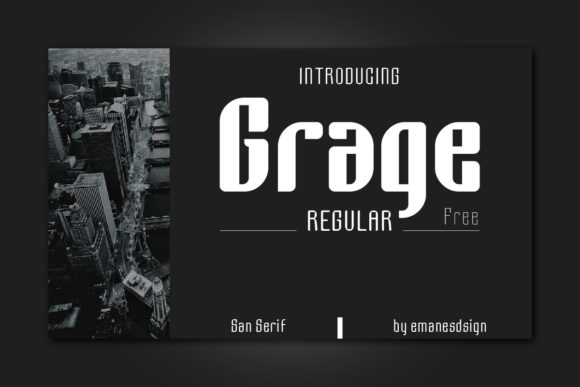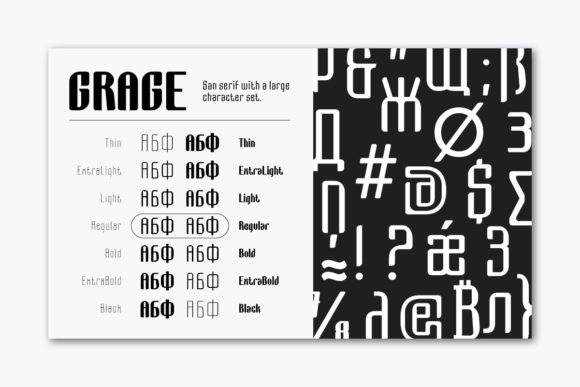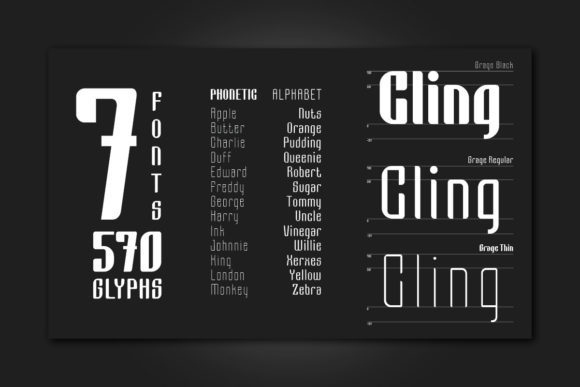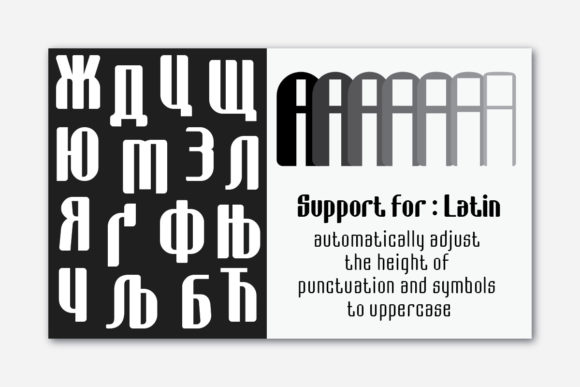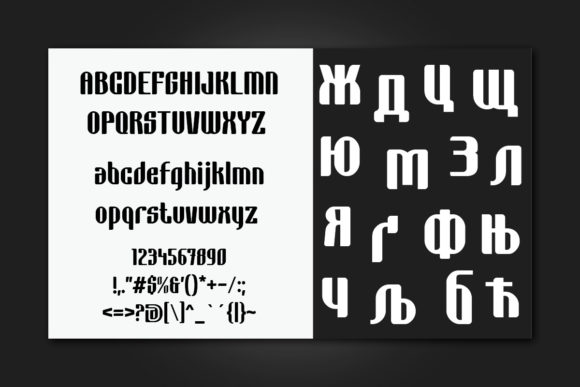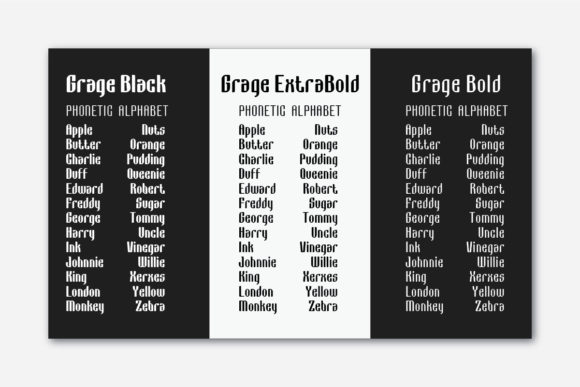
Discover the Bold and Unique Grage Font: Elevate Your Designs with its Simple yet Powerful Style
In the world of typography, fonts play a crucial role in making or breaking a design. A well-chosen font can instantly elevate your project, making it more engaging, readable, and visually appealing. If you’re a designer, craftsperson, or simply someone who loves to dabble in creative projects, you’re likely always on the lookout for that perfect font to bring your vision to life. That’s where the Grage Font comes in – a bold, unique, and versatile sans serif font that’s sure to become your new go-to.
The Grage Font: A Perfect Blend of Boldness and Simplicity
Grage is a bold and unique sans serif font that has been carefully crafted to meet the needs of designers and crafters alike. Its neat and simple style makes it an incredibly versatile font, suitable for a wide variety of designs and projects. Whether you’re working on a logo, brochure, website, or social media graphics, Grage has the potential to become your favorite font, no matter the occasion.
Key Features of the Grage Font
So, what makes Grage such a standout font? Here are some of its key features:
- Bold and Unique: Grage is a bold font that’s sure to grab attention. Its unique style sets it apart from more traditional fonts, making it perfect for projects that require a bit of personality.
- Sans Serif: The clean lines and minimalist style of Grage’s sans serif design make it easy to read and versatile enough to work in a variety of contexts.
- Simple yet Powerful: Grage’s simplicity is part of its strength. Its clean design ensures that your message will always be front and center, while its bold style adds a touch of sophistication.
- Highly Versatile: Whether you’re designing a logo, creating a website, or crafting social media graphics, Grage is up to the task. Its neat and simple style ensures that it will work beautifully in a wide range of projects.
Why Choose the Grage Font?
With so many fonts to choose from, why should you consider Grage for your next project? Here are just a few reasons why Grage stands out:
- Readability: Grage’s bold style and clean lines ensure that your text will always be easy to read, even at smaller sizes.
- Flexibility: Grage works beautifully in both digital and print formats, making it a great choice for a wide range of projects.
- Uniqueness: In a sea of similar fonts, Grage’s unique style ensures that your project will stand out from the crowd.
- Ease of Use: Grage is incredibly easy to use, even for those who are new to design. Its simple style ensures that you can get started right away, without needing to spend hours learning how to use it.
Using Grage in Your Designs
So, how can you start using Grage in your designs? Here are a few ideas to get you started:
- Logos: Grage’s bold style makes it a great choice for logos that need to make a statement.
- Headings and Titles: Use Grage to add a touch of sophistication to your headings and titles.
- Social Media Graphics: Grage works beautifully in social media graphics, where its bold style is sure to grab attention.
- Websites: Grage’s clean design and readability make it a great choice for websites, where it can be used for headings, titles, and more.
| Font Name | Grage Font |
| Author | emanesdsign |
In conclusion, the Grage Font is a bold, unique, and versatile sans serif font that’s perfect for designers, craftspersons, and anyone looking to elevate their designs. Its neat and simple style makes it suitable for a wide variety of projects, while its bold style ensures that your message will always be front and center. Whether you’re working on a logo, website, social media graphics, or anything in between, Grage has the potential to become your new go-to font. So why wait? Give Grage a try today and see the difference it can make in your designs!